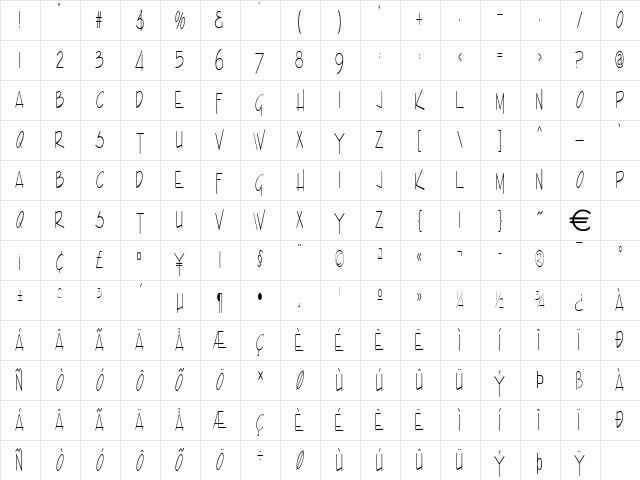
EnviewXtraLight Normal
Design Context for EnviewXtraLight Typeface
EnviewXtraLight offers clean, dependable letterforms without strong stylistic allegiance, making it a practical choice for designers who need flexibility. Its slender proportions lend an understated elegance to any composition.
Pro Tip: Use EnviewXtraLight in both headline and body roles to test its range before committing to a single application.